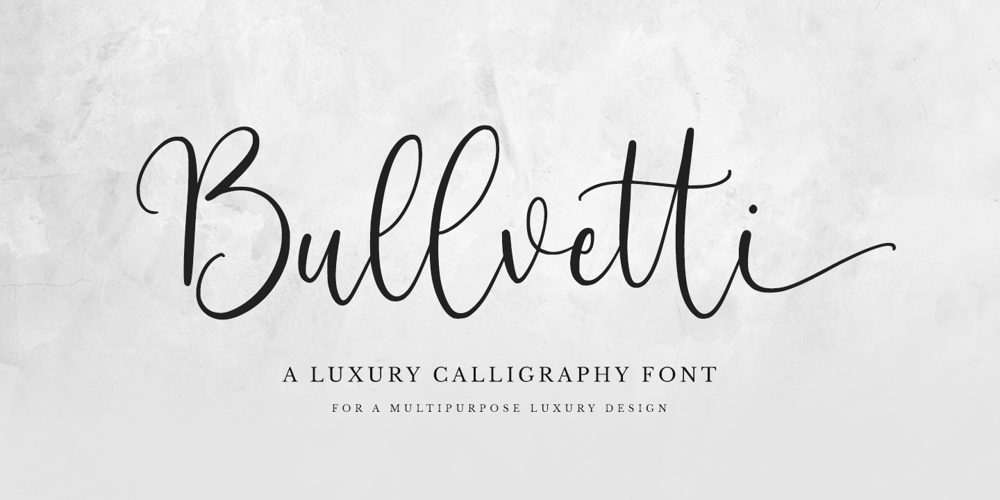
Bullvetti
Bullvetti font
Bullvetti Font Family was designed by Novia Himatunnisa and published by Nissa Nana. Bullvetti contains 1 styles and family package options. Bullvetti is a delicate, elegant and flowing handwritten font. It has beautiful and well balanced characters and as a result, it matches a wide pool of designs. This font is PUA encoded which means you can access all of the glyphs and swashes with ease!